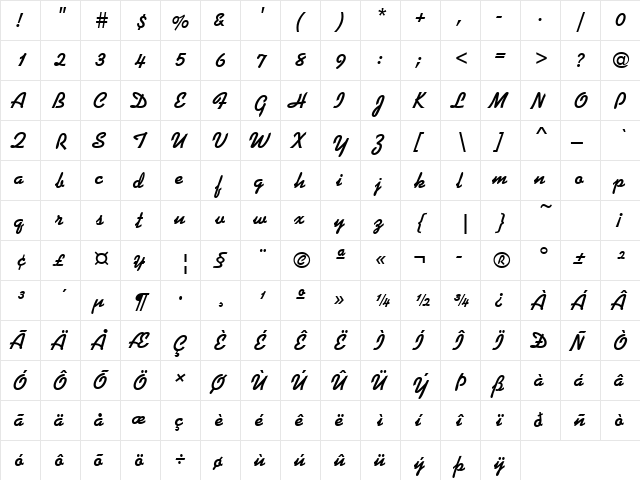
Kaufmann Becker Joining bold Regular Font Preview
Kaufmann Becker Joining bold Regular
Design Context for Kaufmann Becker Joining bold Typeface
Kaufmann Becker Joining bold takes a measured approach to typography — its balanced proportions and neutral character make it a reliable workhorse for both digital and print work. Its bold stroke weight gives it real presence on the page.